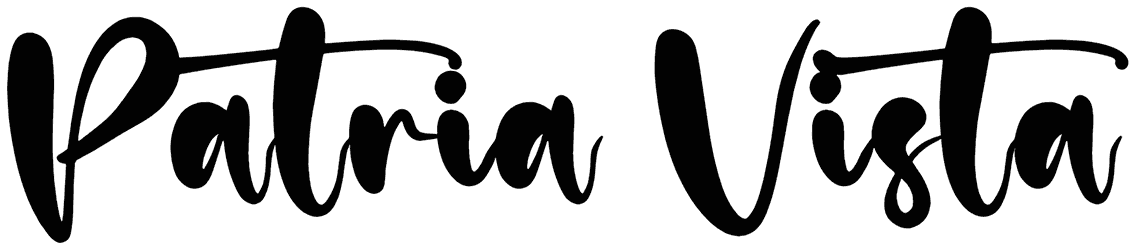
Patria Vista Font
What can be more attractive for a modern design than gorgeous calligraphy? Patria Vista is a handwritten font with a smooth brush lettering style that would be perfect for any formal or informal project. With the full support of characters in two versions, Patria Vista can be an apt choice for business cards, posters, magazines, and lots of others like.